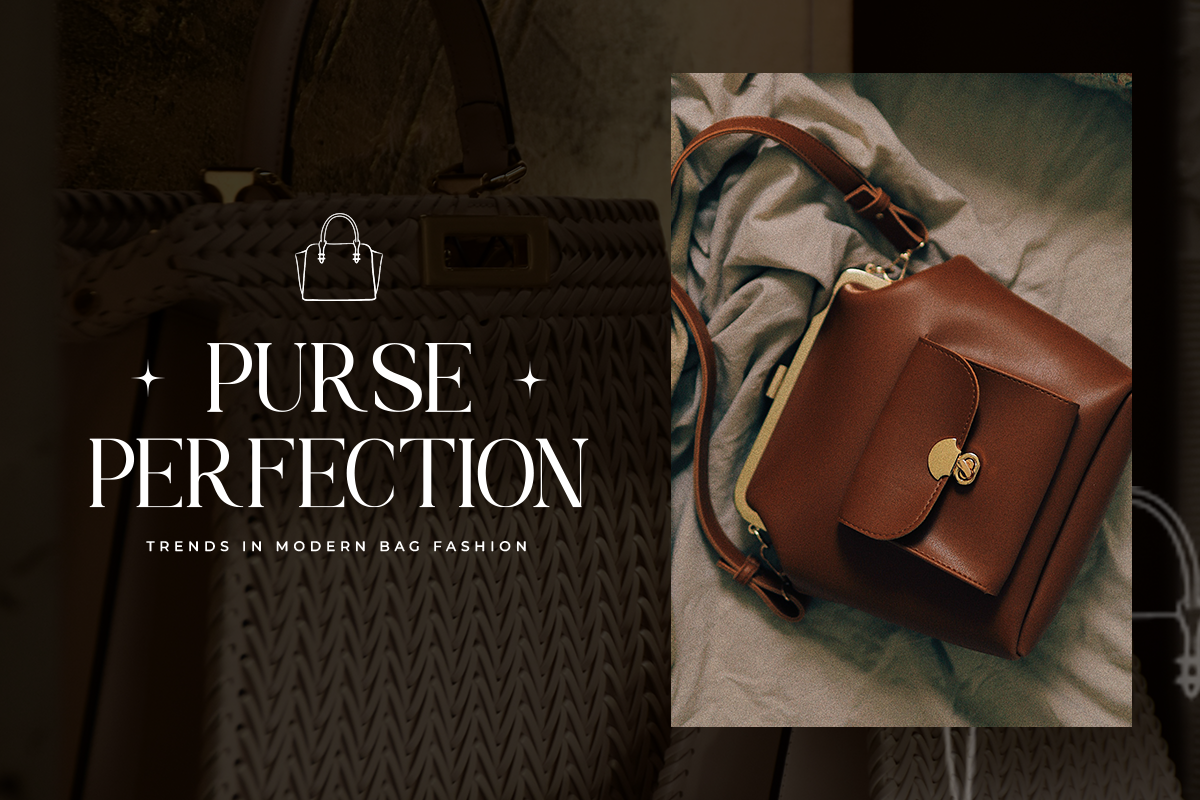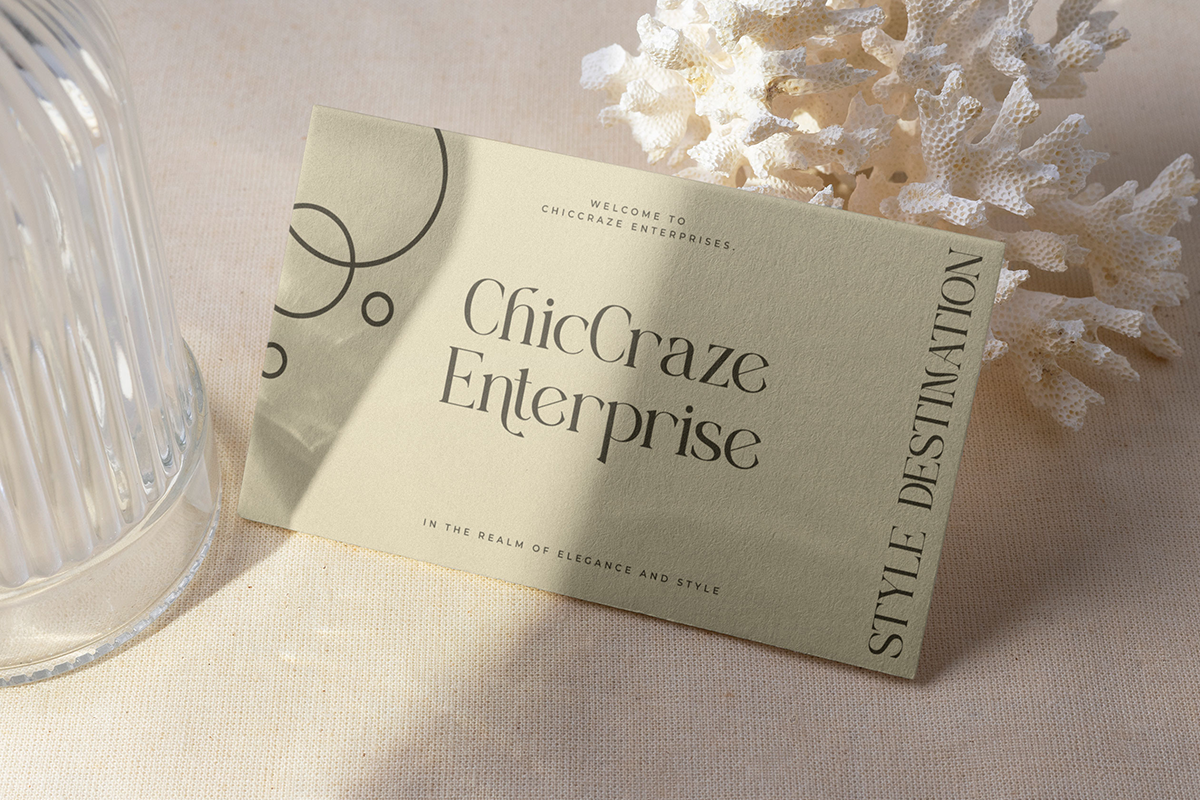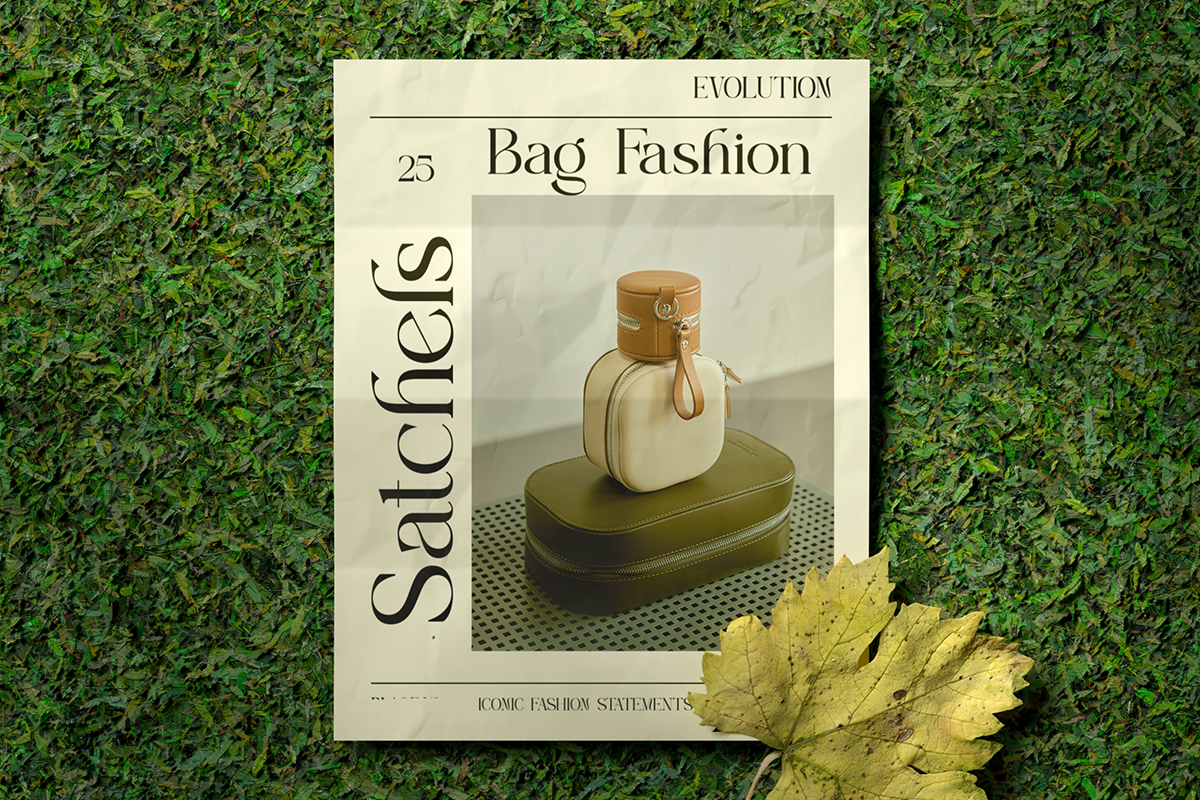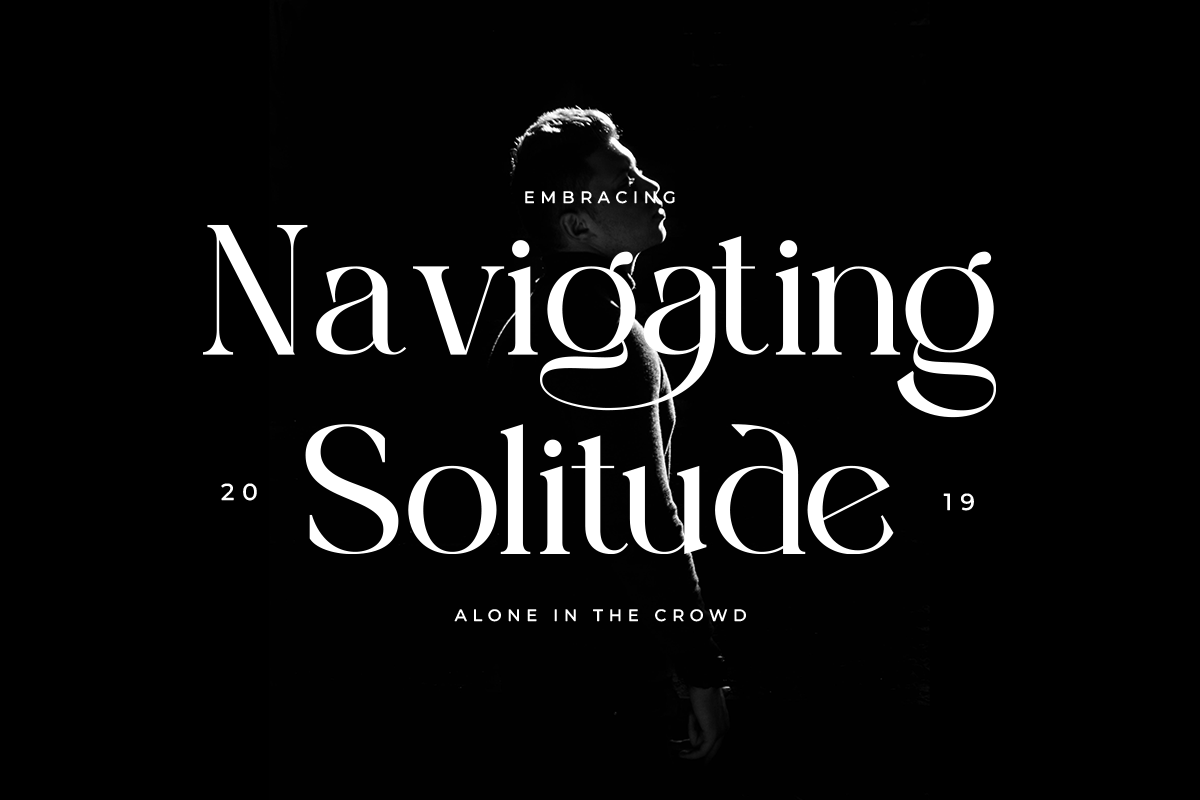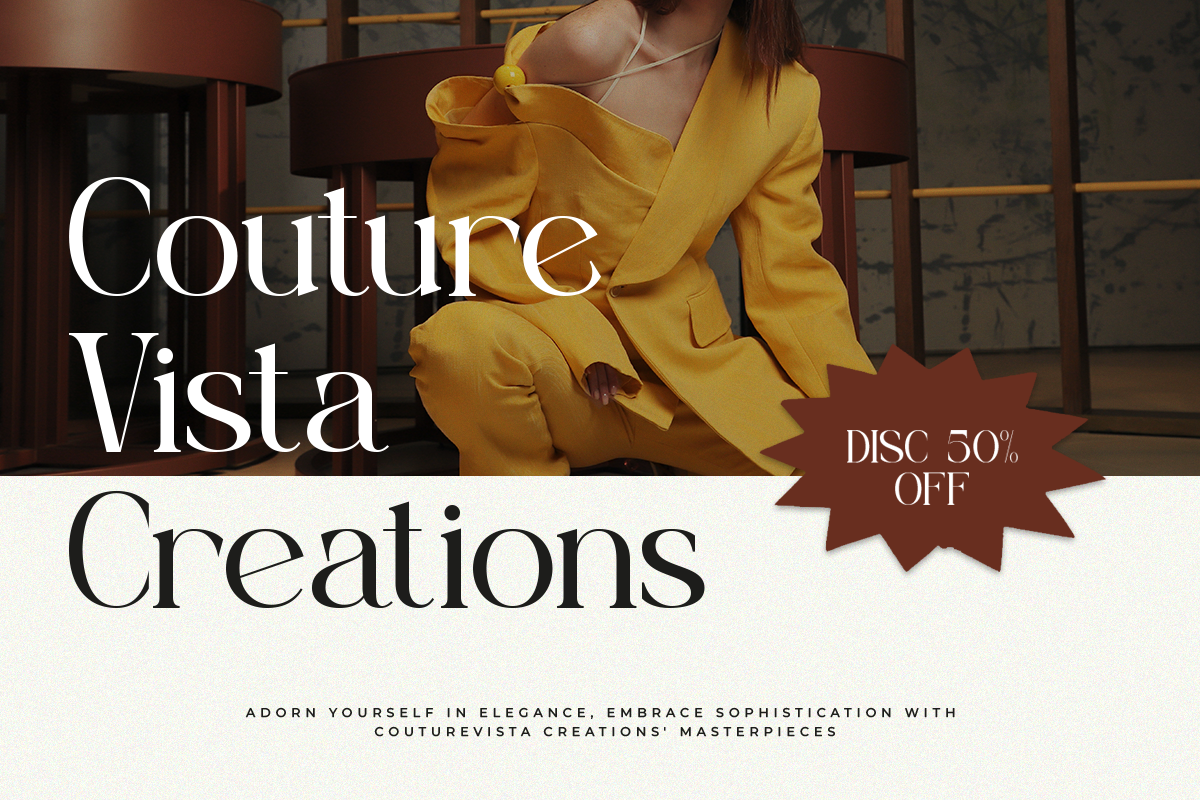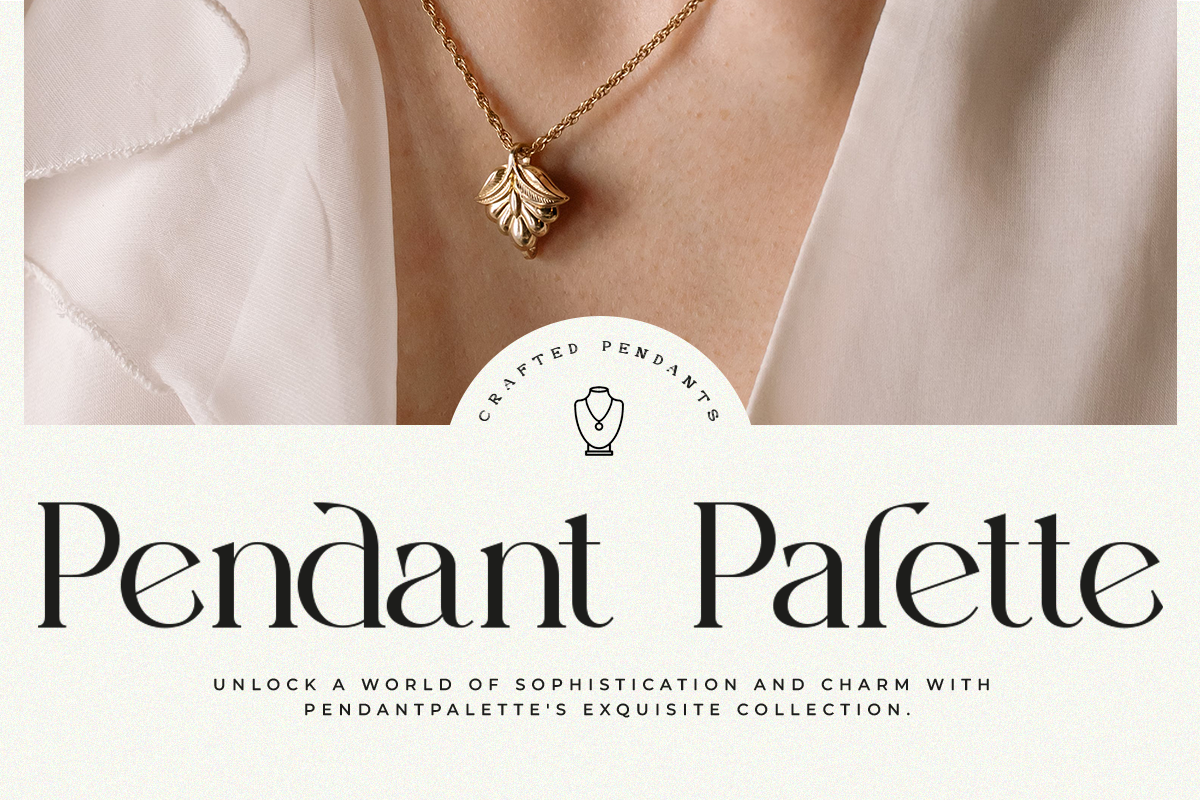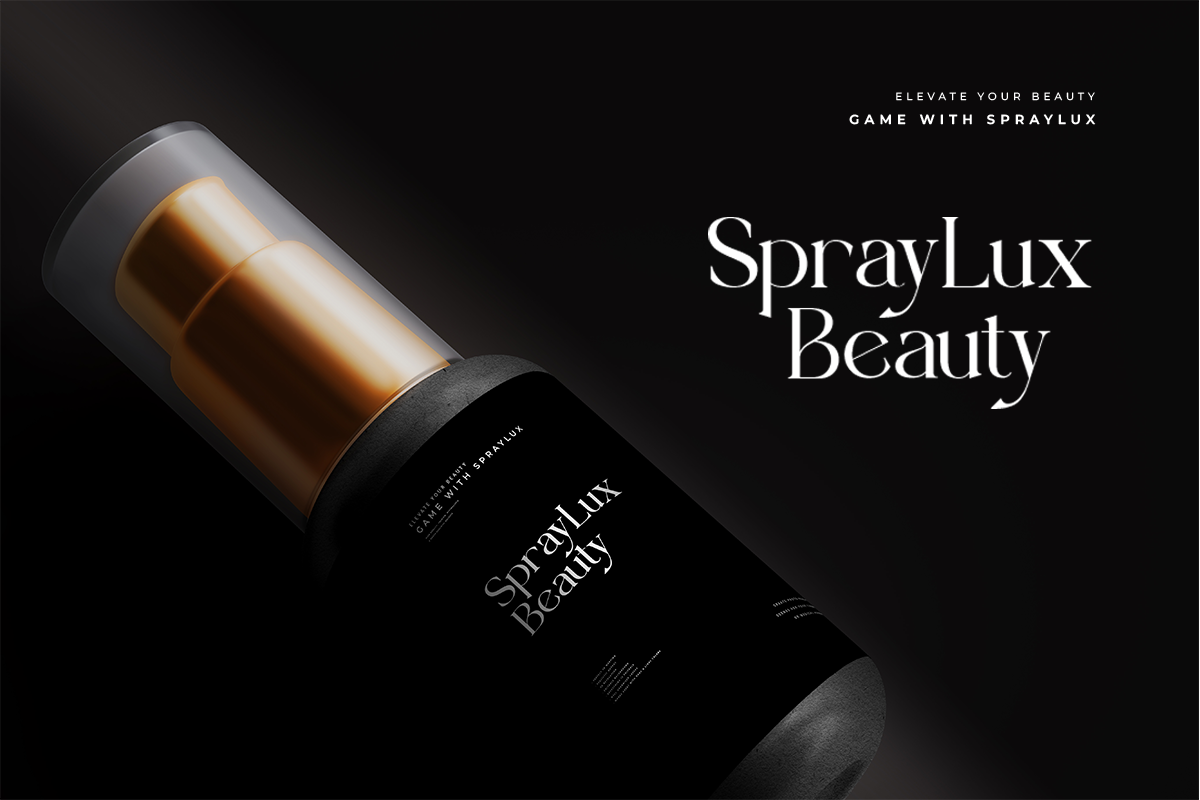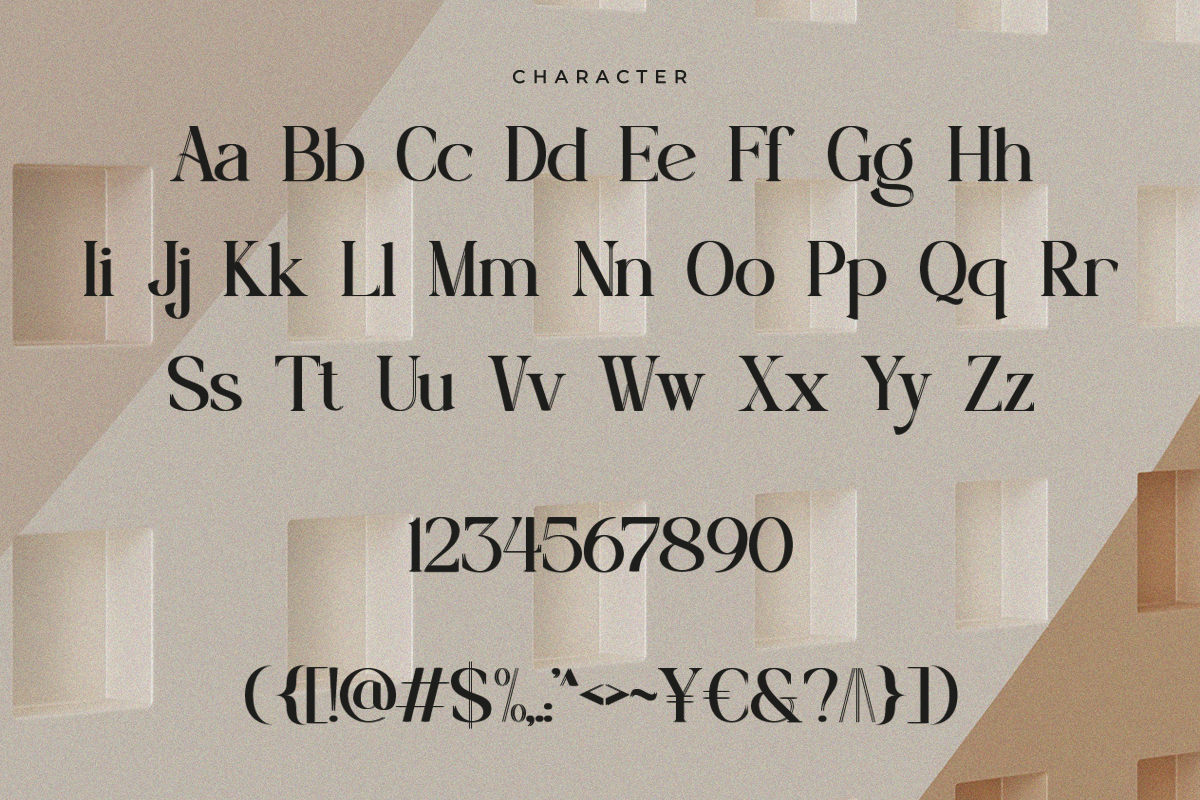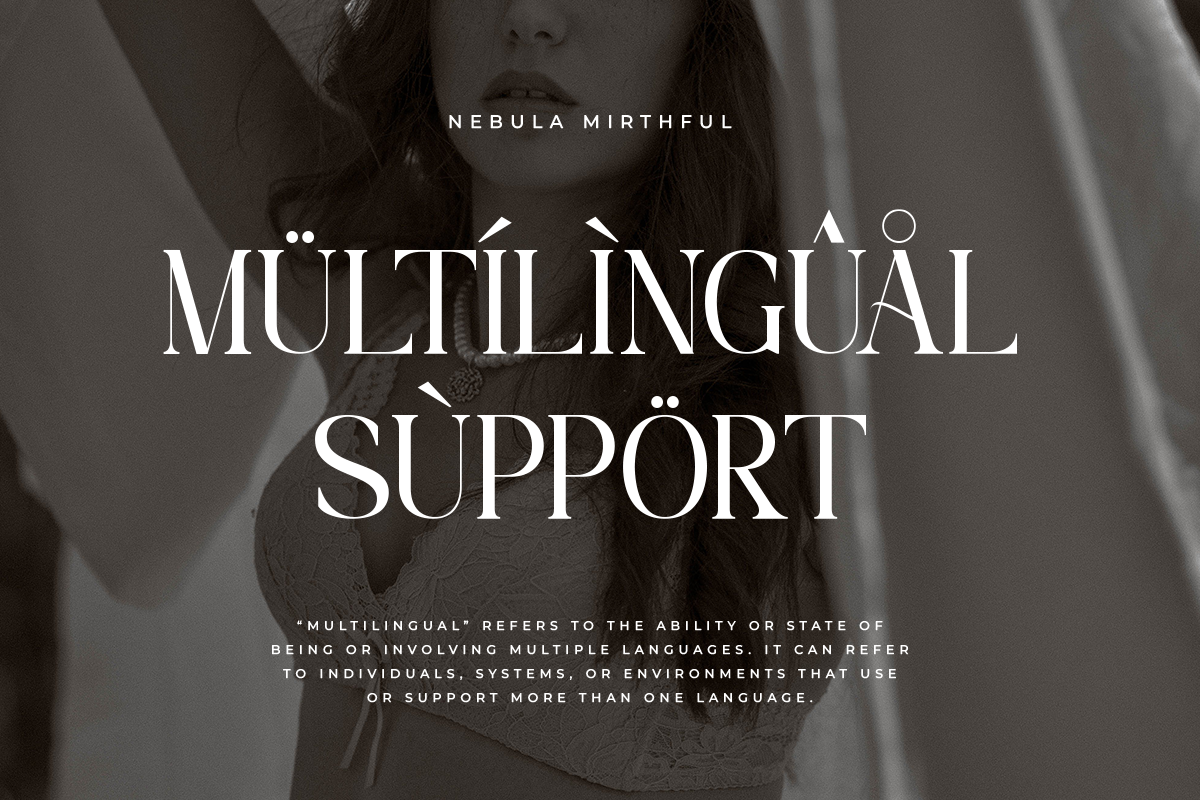
Nebula Mirthful - Modern Serif
Nebula Mirthful, a typeface exuding femininity and beauty, combines the delicate strokes of serif typography with the elegant touch of ligatures. Perfect for diverse applications seeking a graceful and sophisticated aesthetic, it graces luxury branding, fashion editorials, and lifestyle magazines with its refined allure. Crafted with expertise, Swagume harmoniously blends modernity with timeless beauty, presenting a distinctive style that encapsulates grace and poise.
Nebula Mirthful Features: